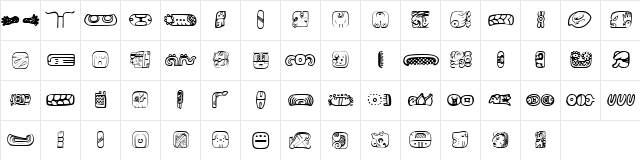
MesoAmerica Dings Regular
Design Context for MesoAmerica Dings Typeface
MesoAmerica Dings is a composed and adaptable typeface that performs quietly and consistently across a wide range of design contexts.